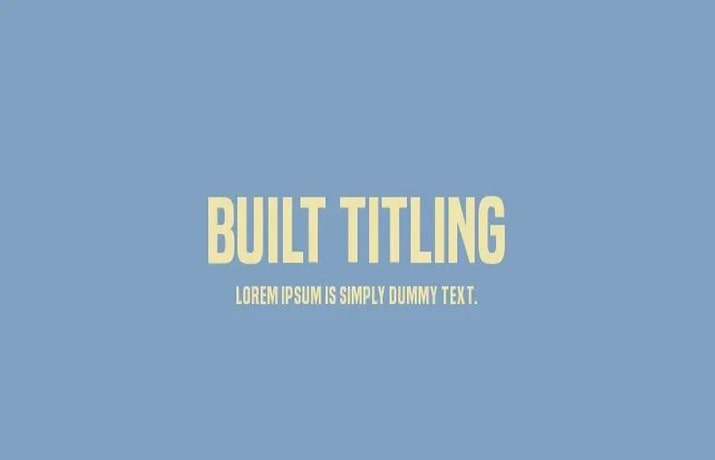
Built Titling Font is a modern sans serif feel. Built Titling Fonts is well suited for sports branding, food advertising, quotes, travel marketing, and more.
It was developed by famous Japanese font designer Ray Larrabee. And Typodermic Fonts owns all rights to this basic font family.
This cool font is made with a solid texture. The designer has used sans serif corners and square corners to create each letter.
This look we usually see in premium fonts. Another great aspect of this, you can of course use it with other sans serif and serif fonts. And easily create headings and paragraphs.
It’s perfect to enhance any creative purpose: headlines, titles, posters, websites, social media profiles, movie posters, game titles, advertisements, web development, product designs, product packaging, and even branding.
As a sweet pack, it comes in 10 different variants including Light, Bold, & Italic. On the other have, each of the styles has to possess Truetype features along with 389 unique glyphs.